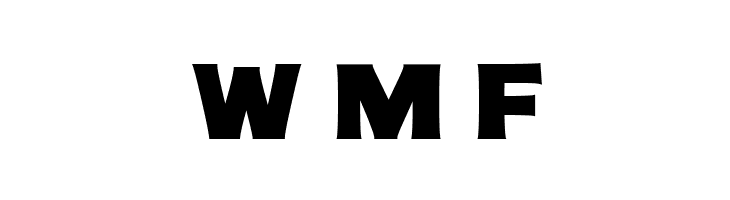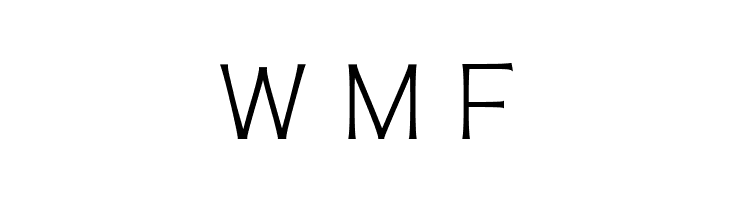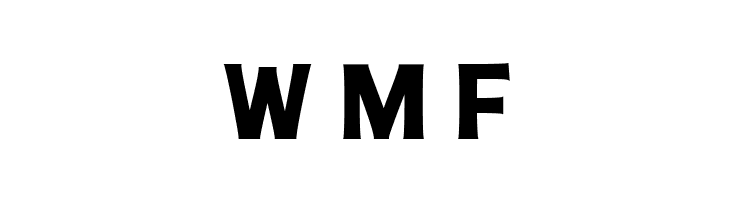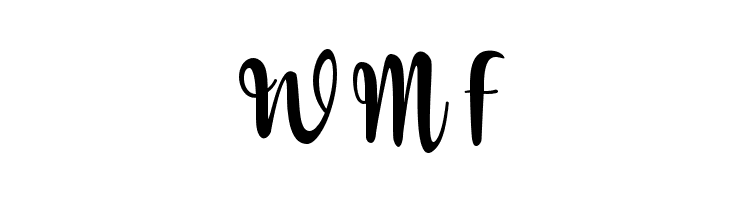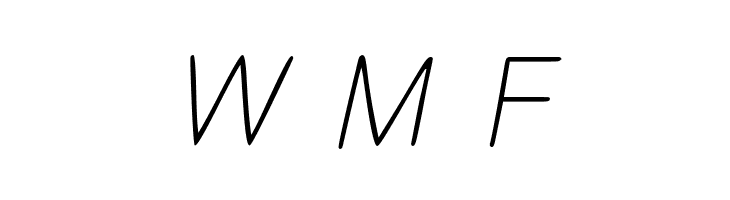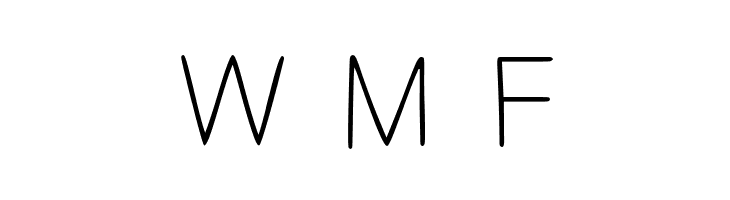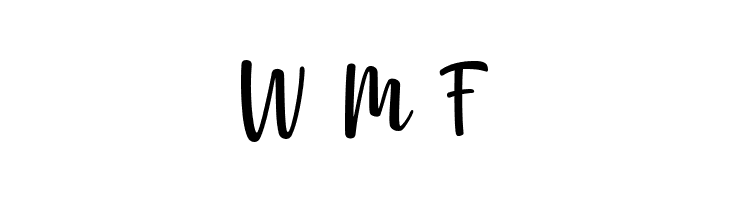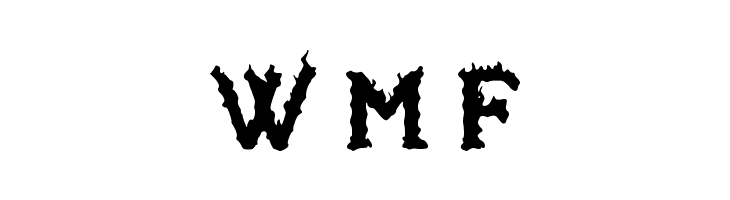
A bold, condensed font with strong, impactful strokes.
A modern, thin sans-serif font with a clean and geometric style.
A bold, condensed font with strong, clean lines and excellent readability.
A bold, flowing script font with elegant loops and decorative flair.
A sleek, italicized font with smooth, flowing lines and a modern aesthetic.
A bold, rounded sans-serif font with a friendly and modern appearance.
A modern, clean sans-serif font with rounded edges and balanced spacing.
A bold, italicized modern font with sleek, consistent strokes and balanced spacing.
A lively and expressive handwritten font with dynamic strokes.
A bold, flame-inspired font with jagged, dynamic characters.